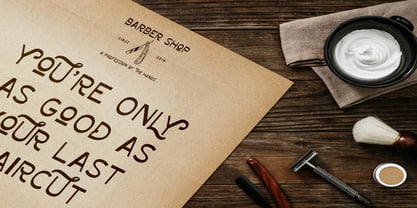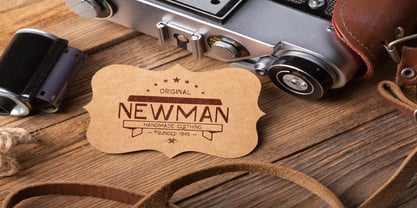
Fairly Journey
by Letterena Studios
The Fairly Journey Font Family was designed by Heru Utama Putra and published by Letterena Studios. Fairly Journey contains 2 styles and family package options.
Fairly Journey is a modern and classy display typeface that has its own unique style and unique look.
This typeface is perfect for an elegant and luxury logo, book or movie title design, fashion brand, magazine, clothes, lettering, quotes, and so much more.